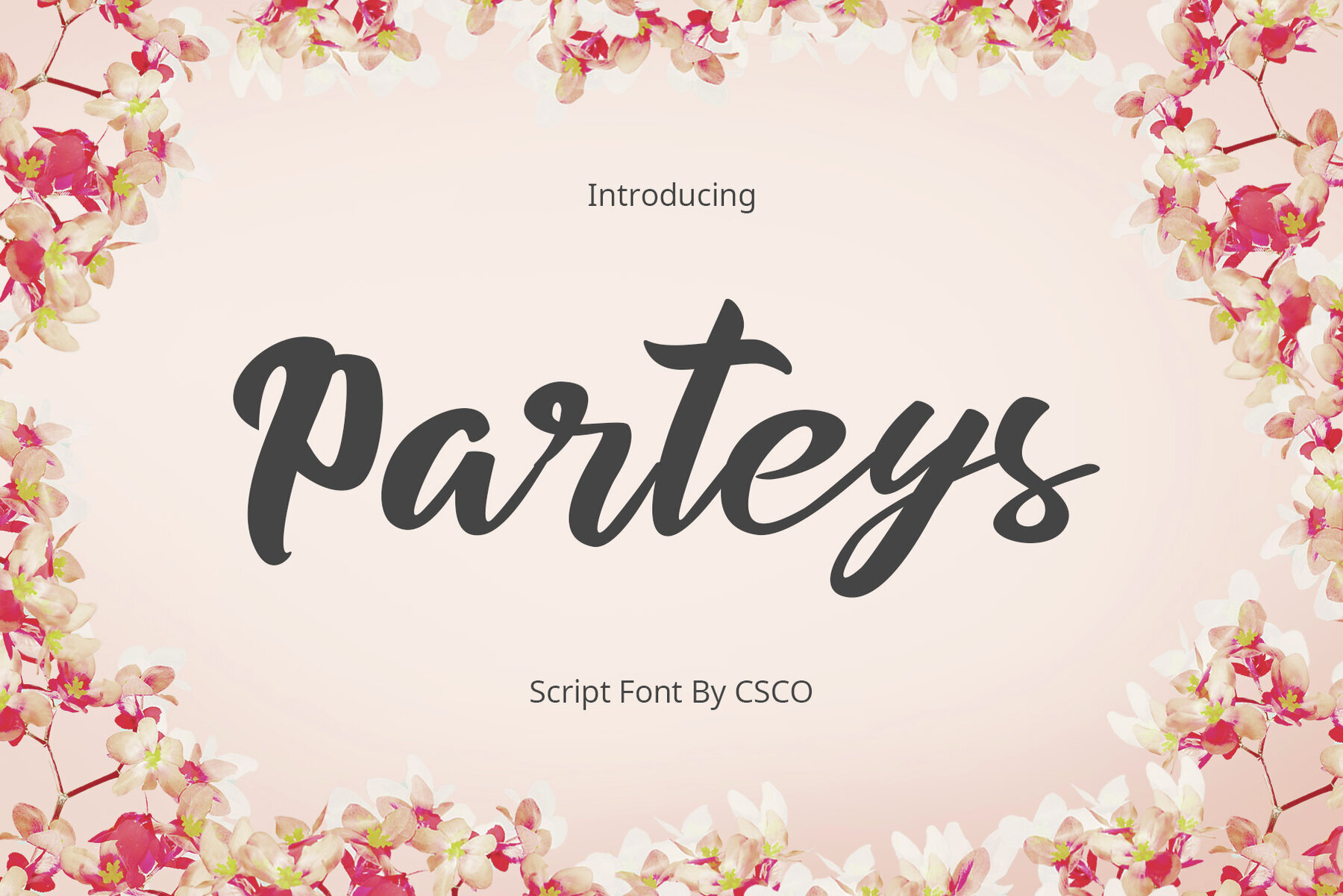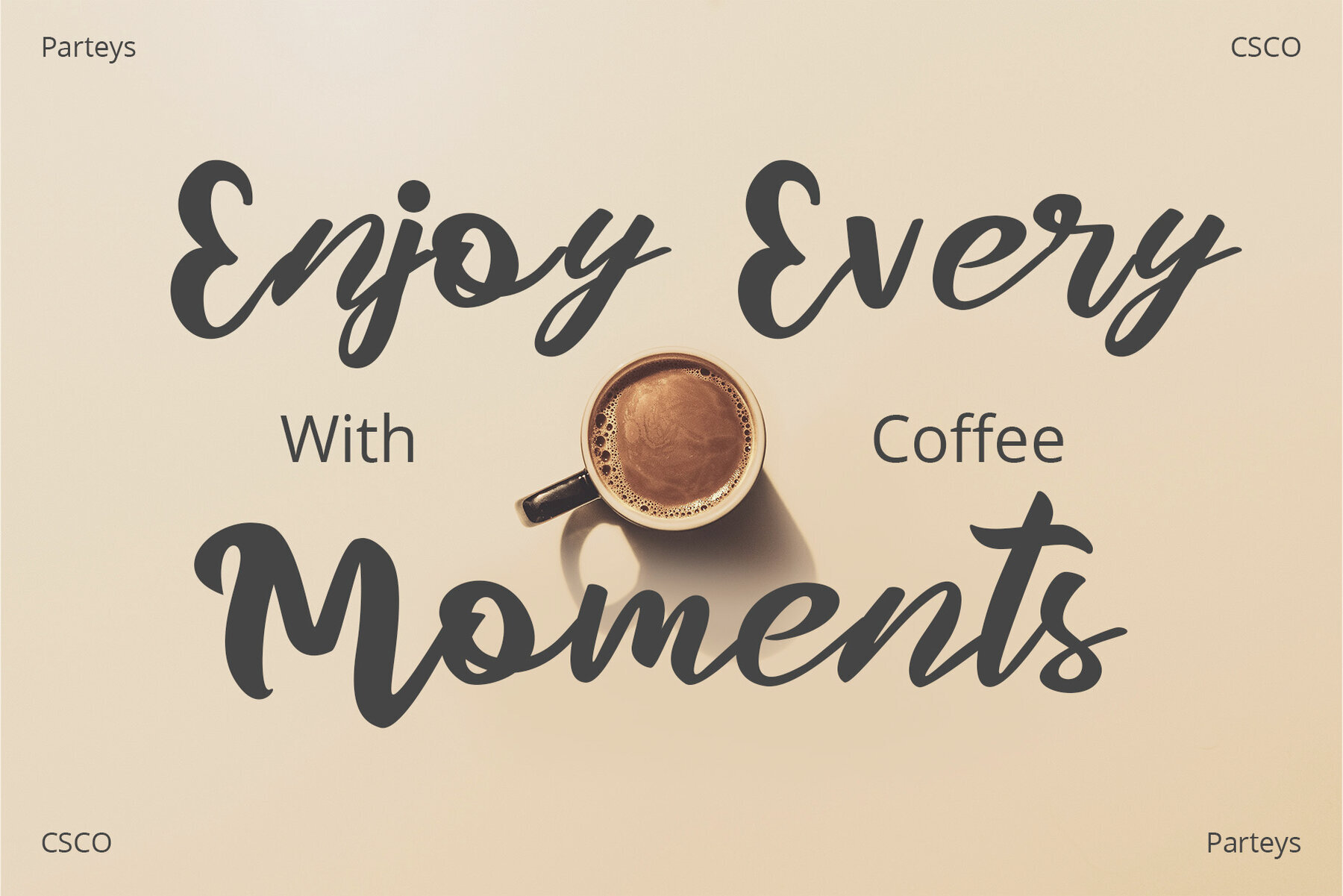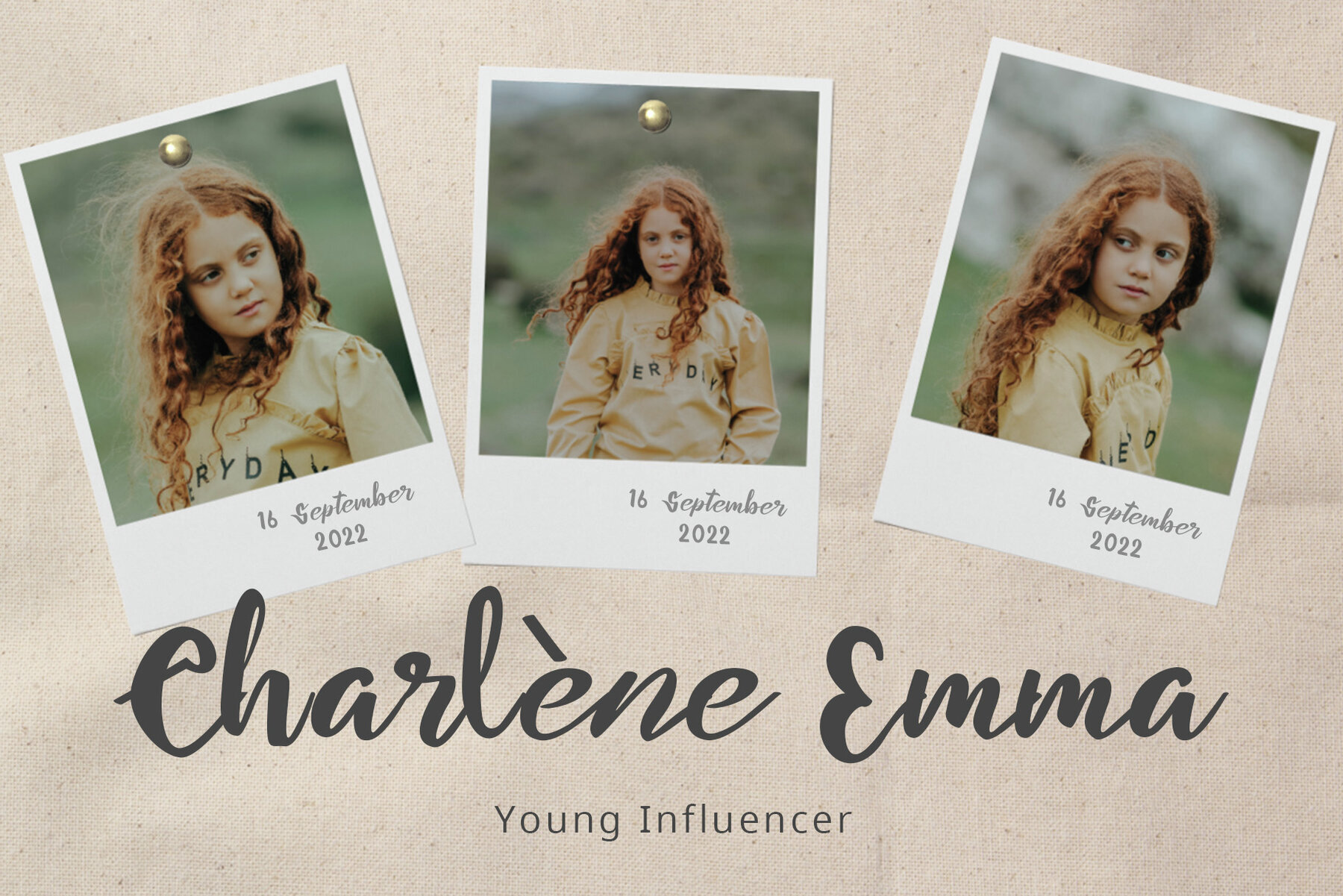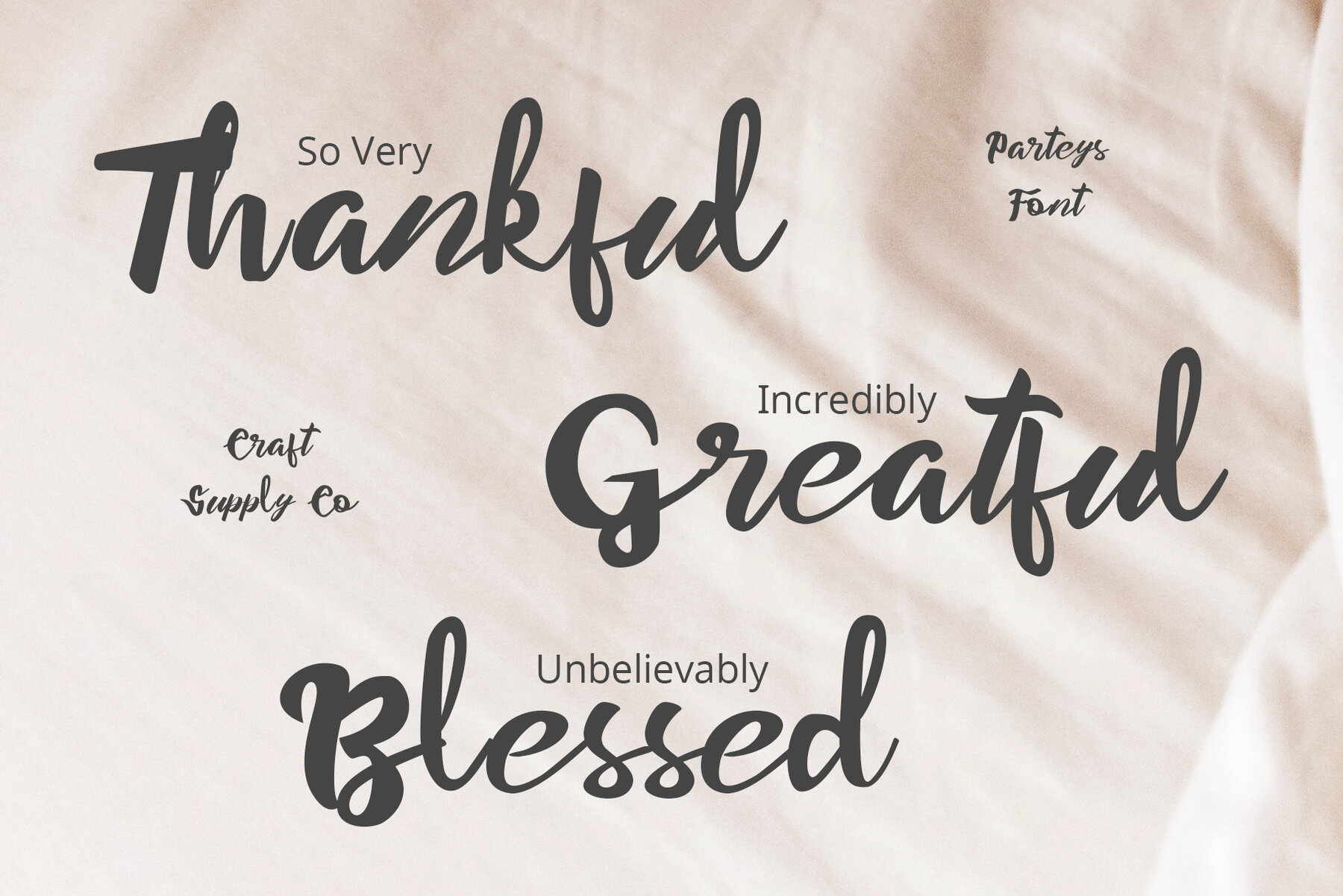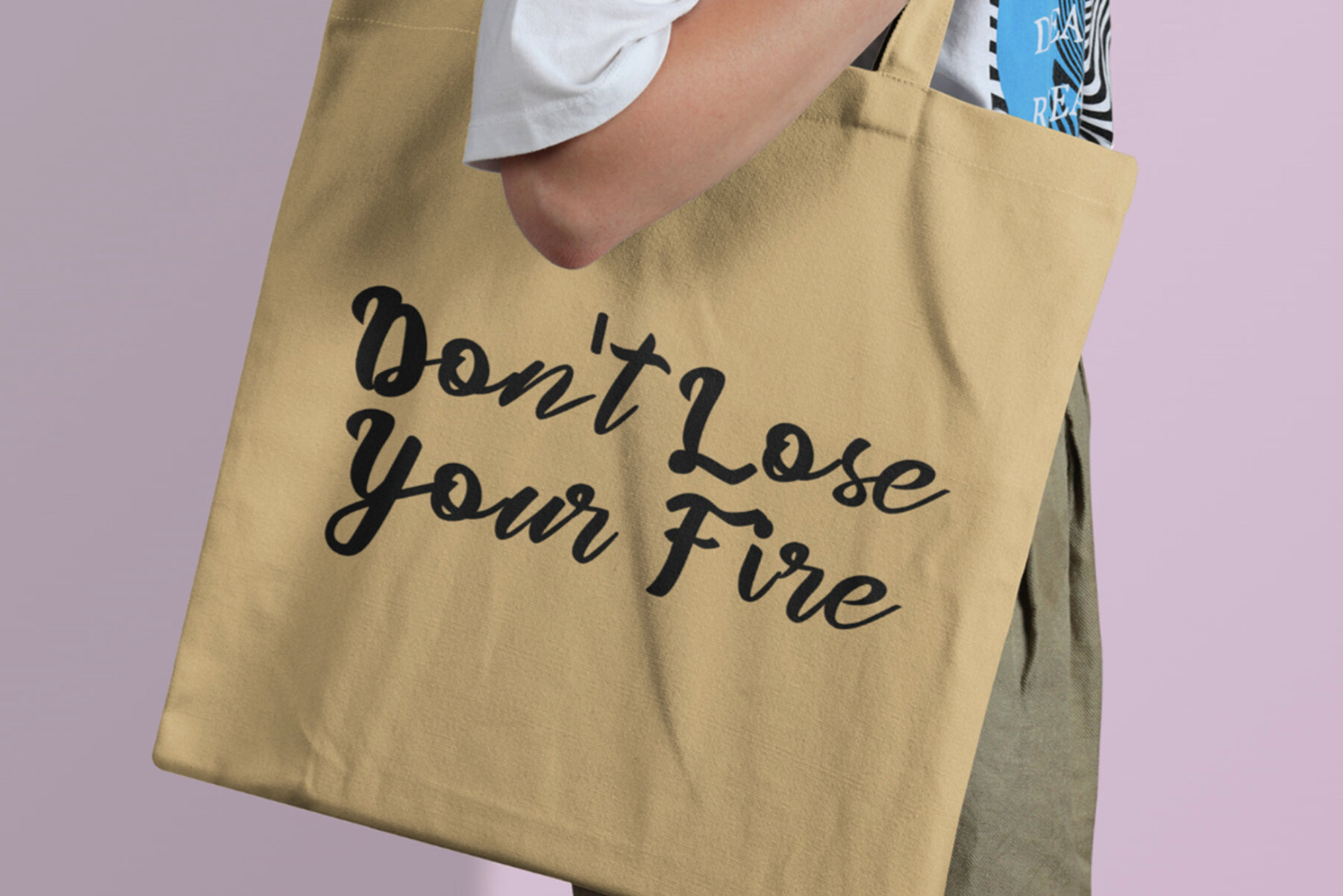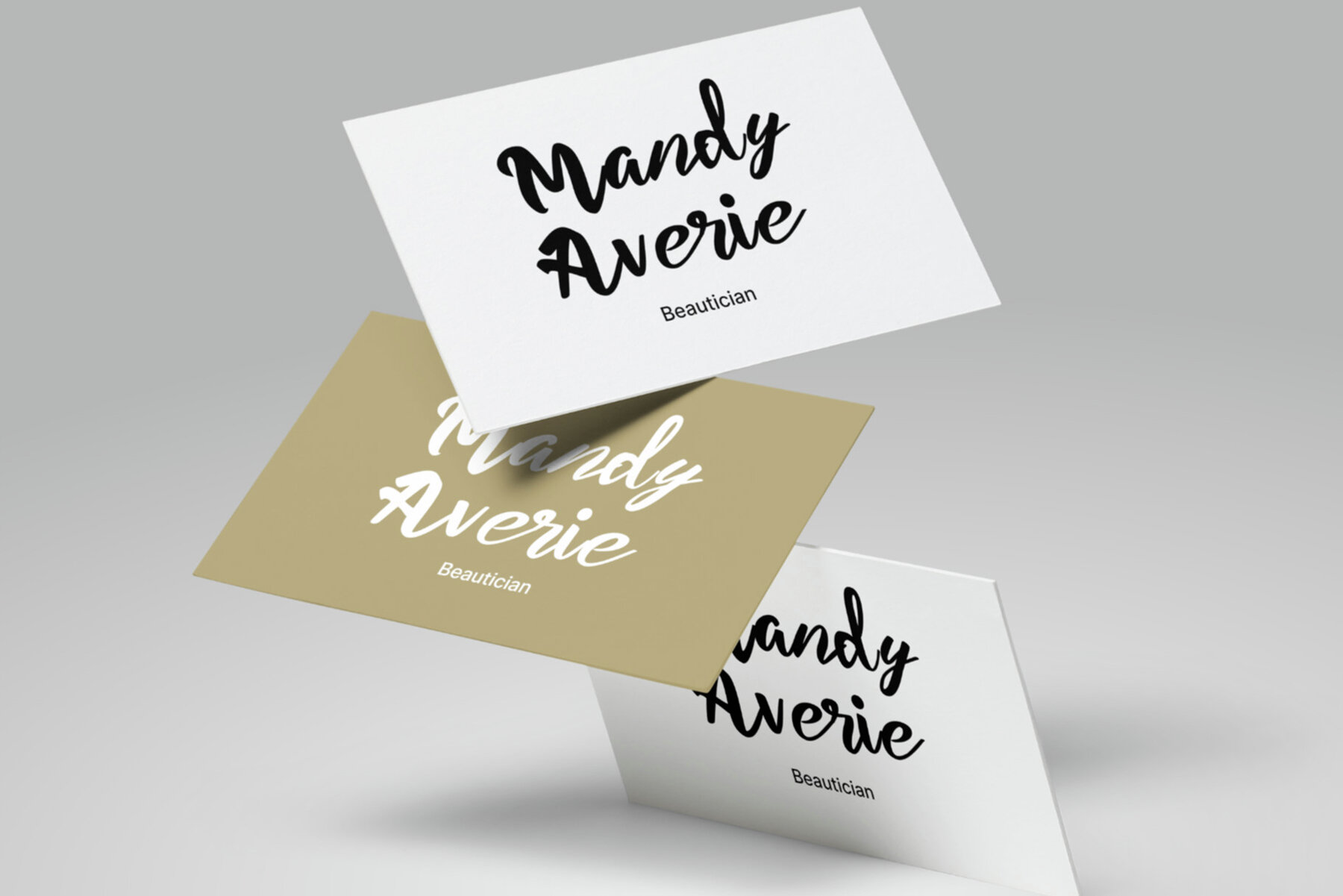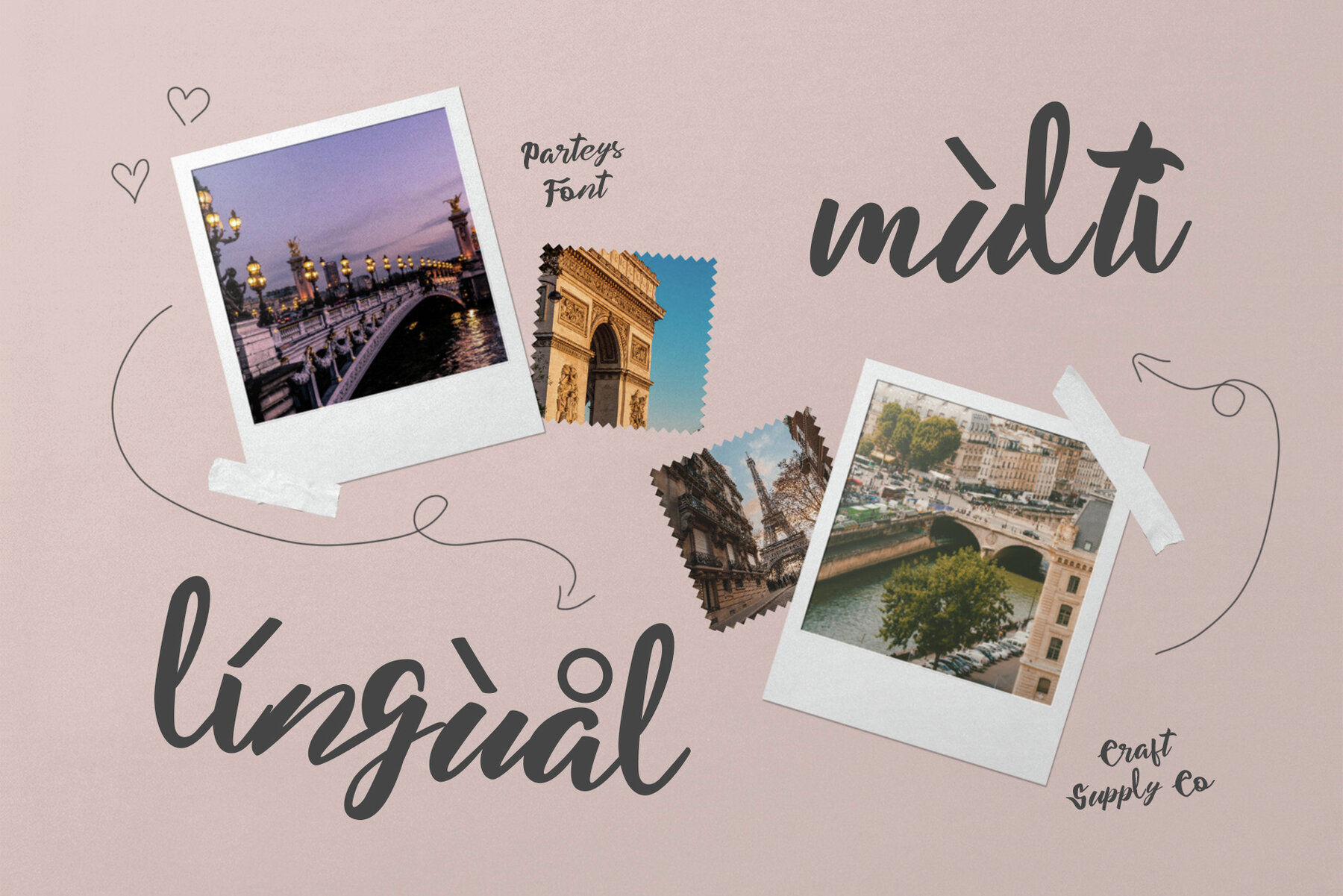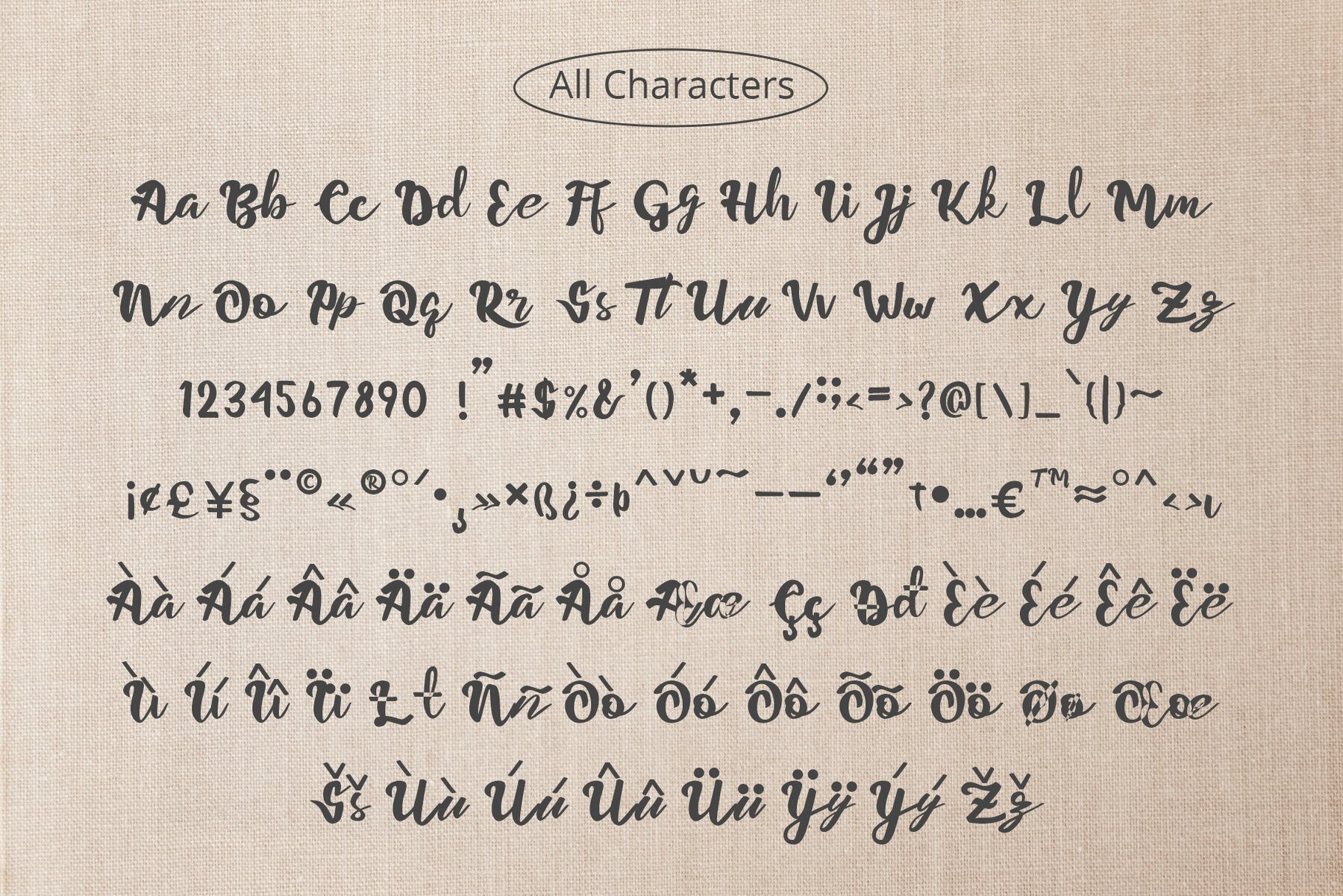
Parteys: Dynamic Brush Script Font
Parteys is a brush script font designed to bring dynamism to your creative projects. With varied stroke widths, it captures attention effortlessly, making it perfect for eye-catching displays.
Expressive Brush Strokes
This font features expressive brush strokes, ensuring your text conveys a lively and energetic appearance, ideal for projects requiring a touch of excitement.
Versatile Design Possibilities
Parteys Brush Script offers versatility, suitable for a variety of creative applications, including posters, invitations, branding, and social media graphics.